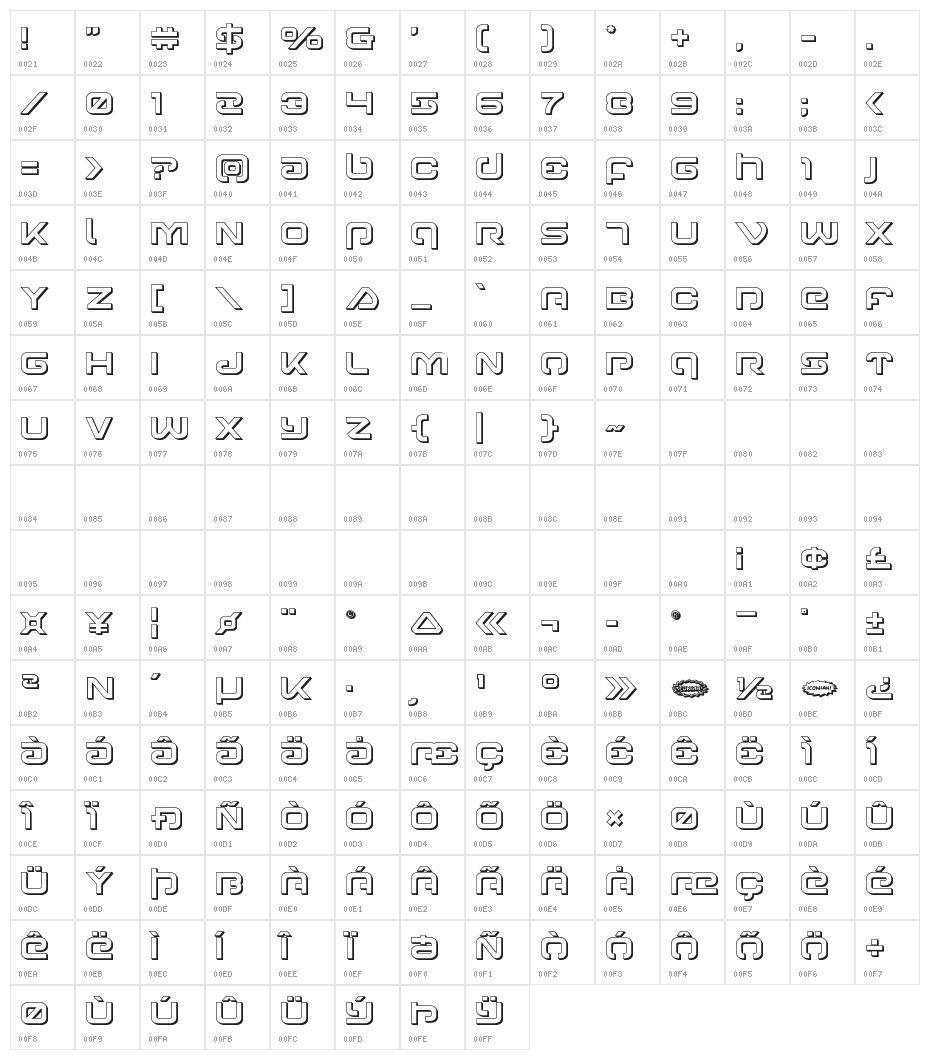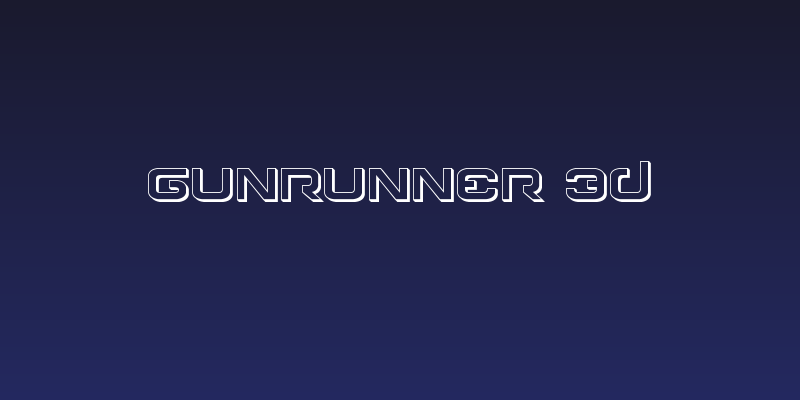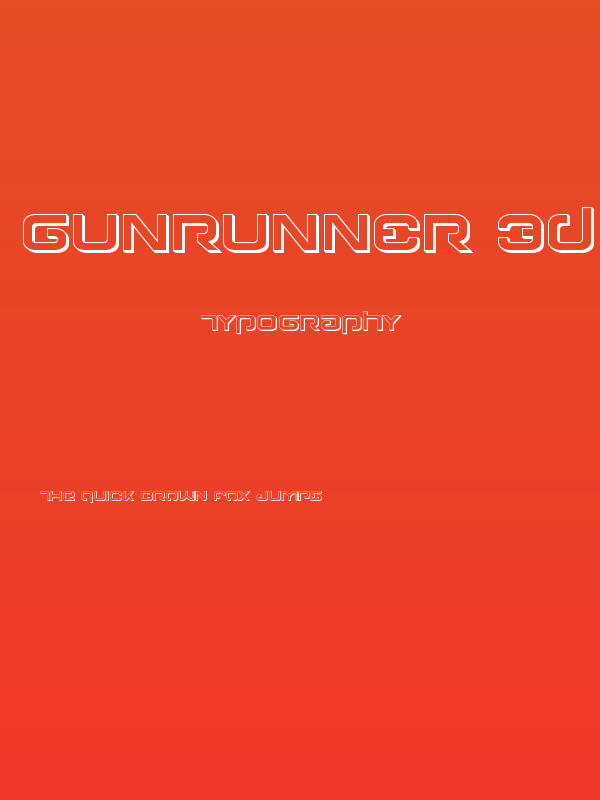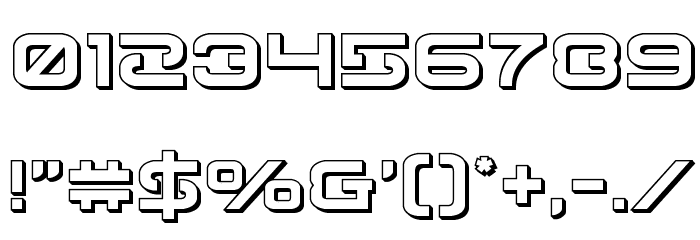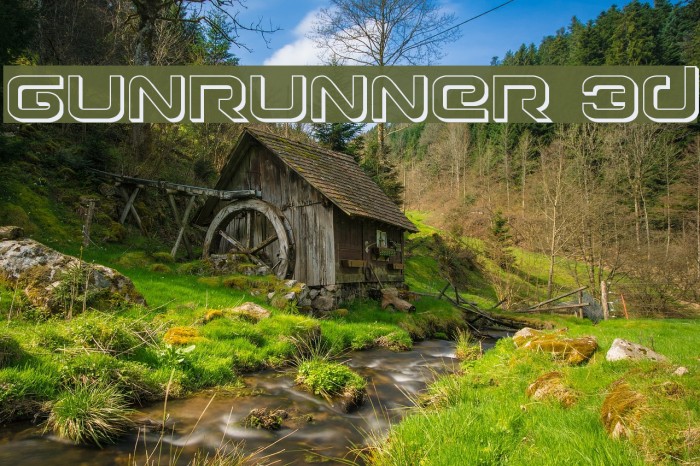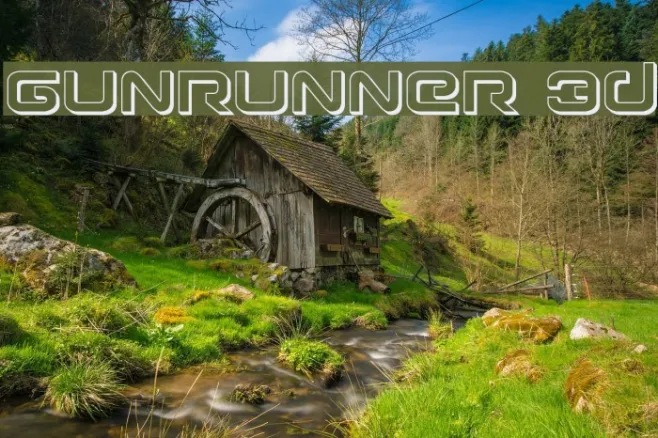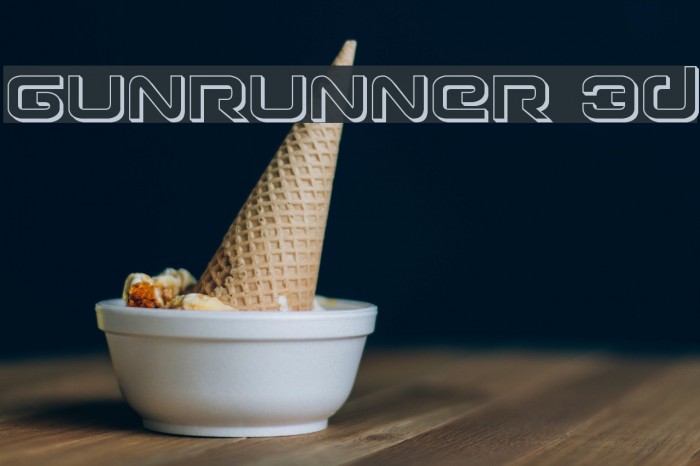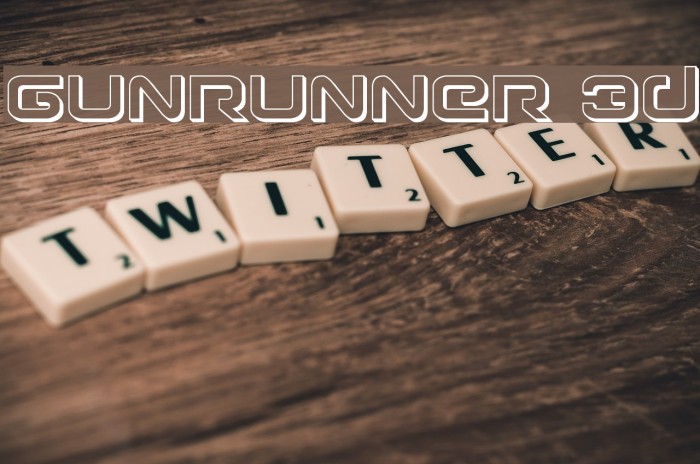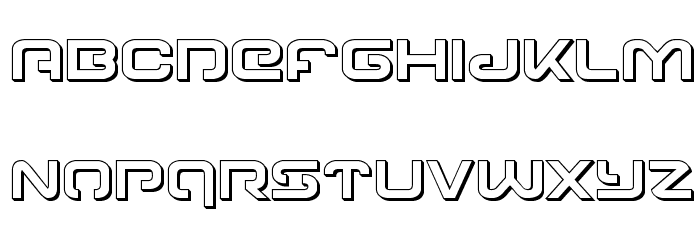
Gunrunner 3D Font
Gunrunner 3D Description
This font features a futuristic and geometric design, characterized by its bold, three-dimensional appearance. The letters are outlined with a consistent stroke width, creating a hollow effect that adds depth and dimension. The angular and sharp edges give it a modern and tech-inspired look, making it stand out in digital and print media. The uniformity in its structure ensures readability while maintaining a unique aesthetic. The numbers and special characters follow the same design principles, ensuring consistency across all glyphs.
| Proposed Projects | Ideal for tech-related branding, video game titles, sci-fi movie posters, and digital artwork. |